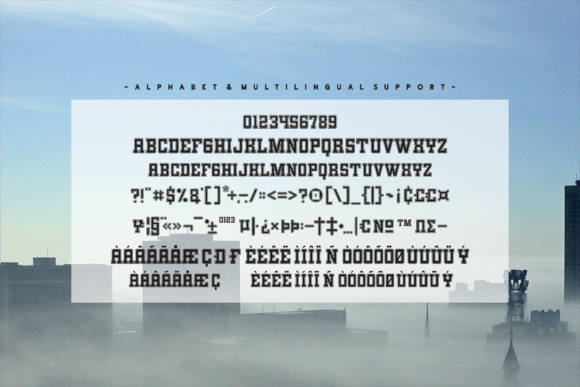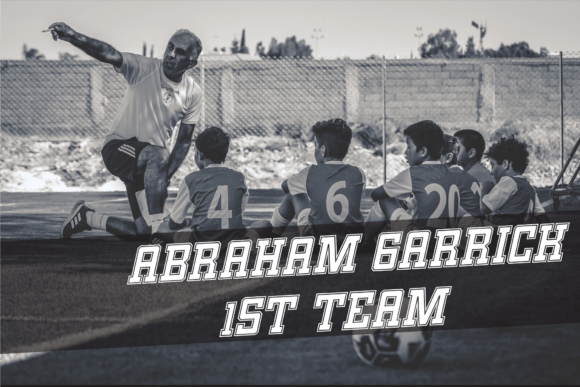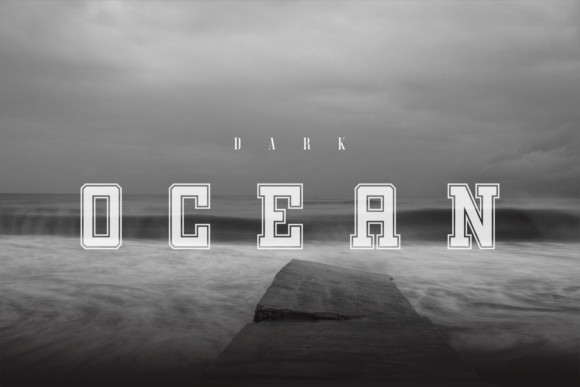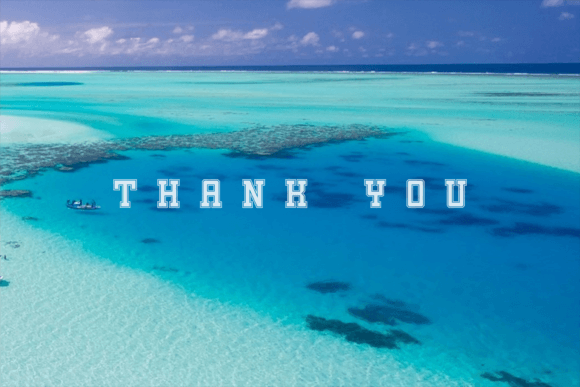
Unleash the Power of Bionic City Font
Remember that moment when you stumbled upon the perfect font for your project? The one that made all your design elements come together in perfect harmony? For many designers, that moment is what drives them to create something truly special. And that’s exactly what the Bionic City Font is all about – giving your designs a bold and authentic touch that sets them apart from the rest.
Bionic City Font is a sleek and modern slab serif font that’s perfect for sports, racing, and anything related to the fast-paced world of action. Its cool style and versatility make it a valuable asset for designers who want to make a statement. Whether you’re working on a logo, a poster, or a website, Bionic City Font is sure to bring your designs to life in a way that’s both eye-catching and memorable.
Bionic City Font Key Features
- Font Family: Bionic City Font
- Unique Characteristic: Includes a unique set of futuristic and robotic-inspired glyphs, perfect for sci-fi and tech-related designs
Bionic City Font Review
First off, let me say that I was initially drawn to this font due to its futuristic and edgy aesthetic ✨. The bold lines and geometric shapes give off a very industrial vibe, perfect for designs that need a touch of grit and sophistication. The font also comes in a range of weights, from light to black, allowing for a lot of versatility in its use.
- The Bionic City Font is highly legible, even at smaller sizes ✨. This makes it a great choice for body text or for use in digital interfaces.
- The font’s unique style makes it a great choice for branding and marketing materials, especially for companies in the tech or industrial sectors ✨.
However, there are a few limitations to consider ⚠️. The font may be a bit too edgy for some designs, and its industrial aesthetic may not be suitable for every project. Additionally, some users may find the font to be a bit too bold or overpowering, especially in smaller sizes.
Overall, I think the Bionic City Font is a solid choice for designers who want to add a touch of futurism and sophistication to their designs. While it may not be the best choice for every project, it’s certainly a versatile font that can be used in a variety of contexts.
To get the most out of the Bionic City Font, use it for headings and titles to create a strong visual impact. Experiment with different font sizes and colors to enhance the overall design. You can also use it in combination with other fonts to create a unique and modern look.
The Bionic City Font is ideal for use in:
- Graphic design projects
- Branding and identity design
Open Sans is a modern sans-serif font suitable for various design applications, including digital products, websites, and publications. It is a great choice for body text due to its legibility and clarity. Open Sans is more versatile than Bionic City Font, which is specifically designed for digital signage and urban environments. Use Open Sans when you need a clean and approachable font for general use.
Montserrat is a geometric sans-serif font inspired by urban environments. It is similar to Bionic City Font in its aesthetic and is ideal for digital signage, wayfinding systems, and urban design projects. However, Montserrat is more versatile and has a wider range of font weights and styles. Use Montserrat when you need a font that echoes the spirit of urban environments but with more flexibility.
3. Inter
Inter is a modern sans-serif font designed for digital products and interfaces. It is highly legible and versatile, making it suitable for a wide range of applications, from body text to headings. Inter is more neutral and minimalistic compared to Bionic City Font, which has a more distinctive and futuristic feel. Use Inter when you need a clean and sophisticated font that works well in various contexts.